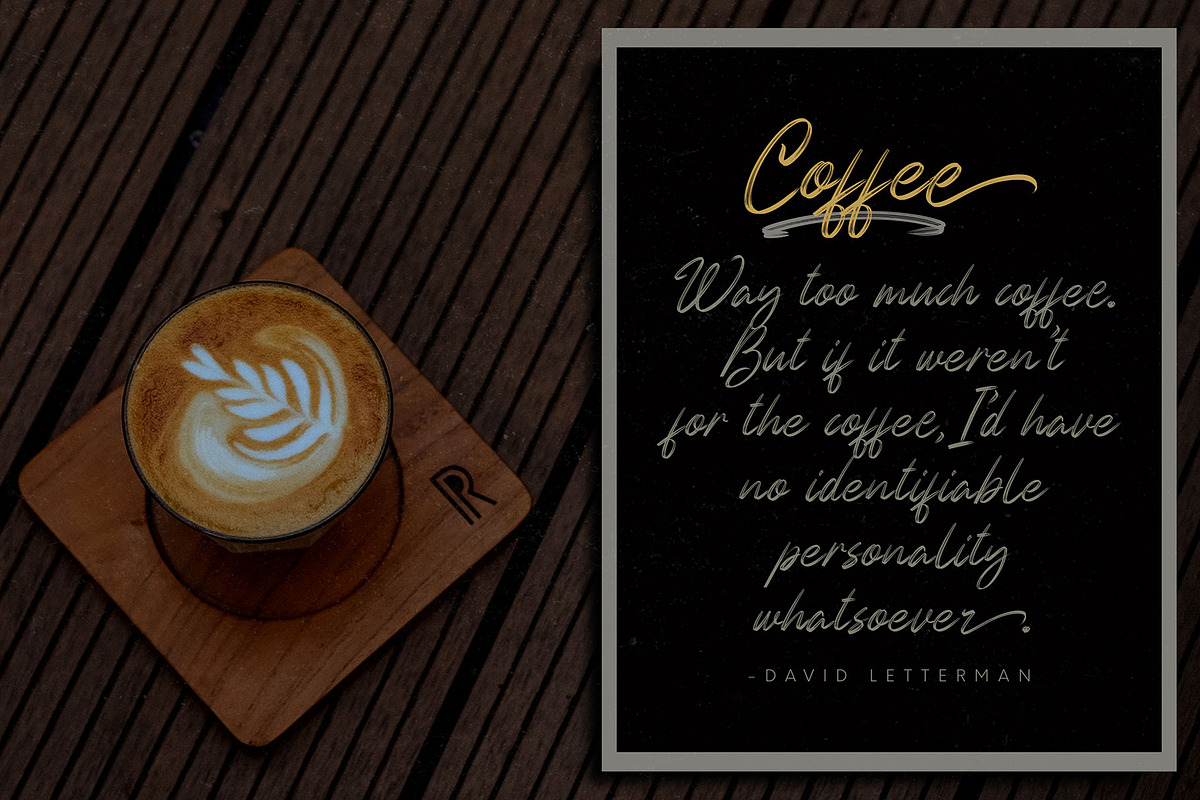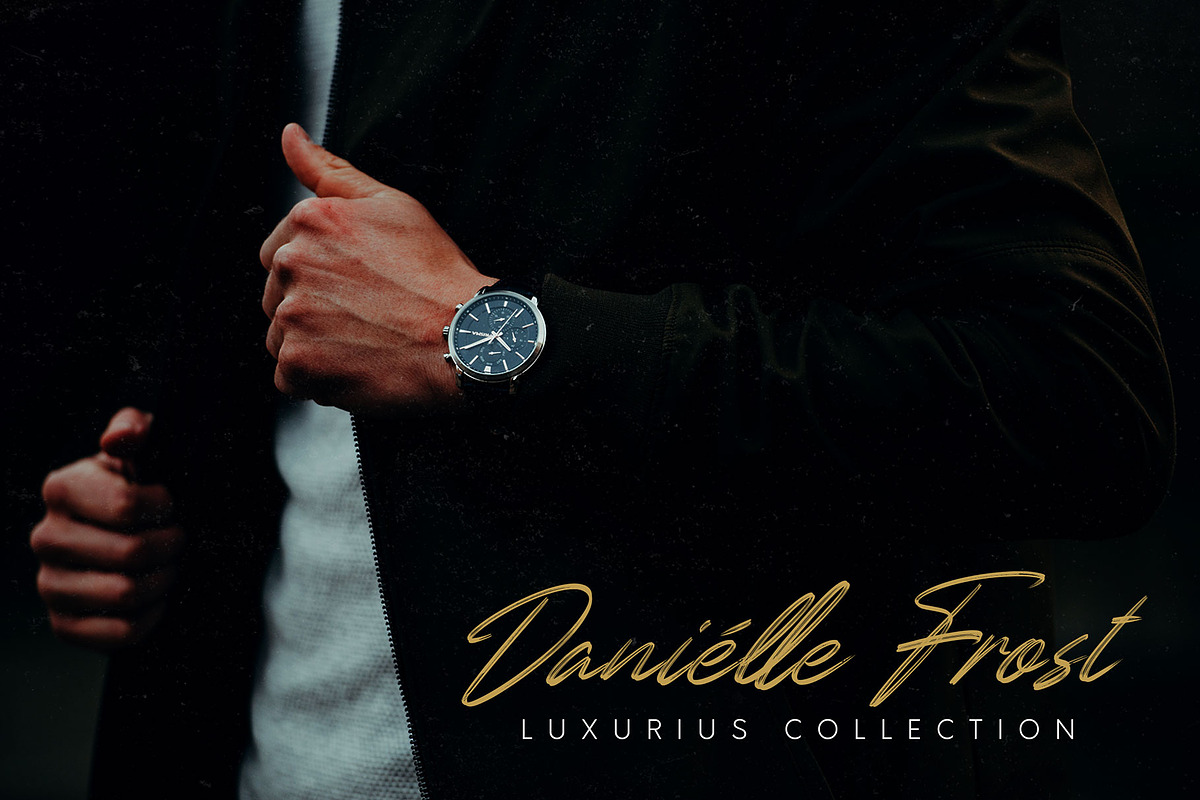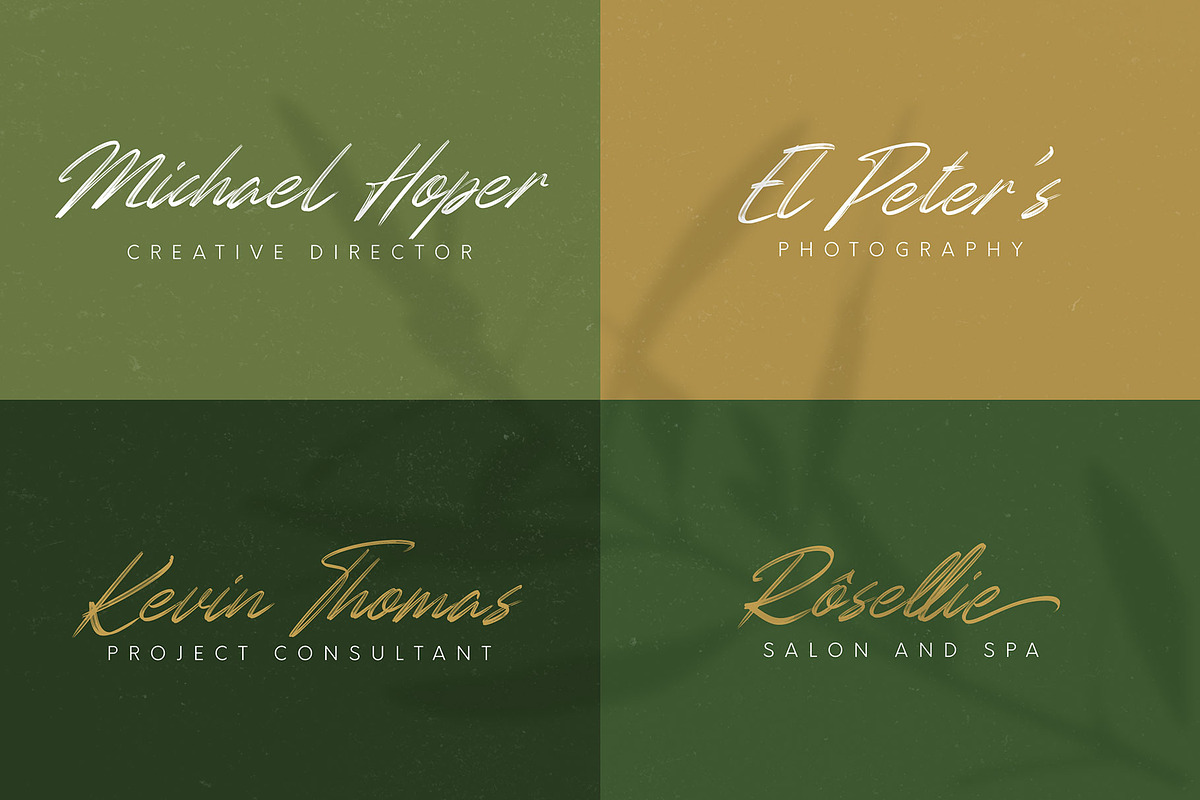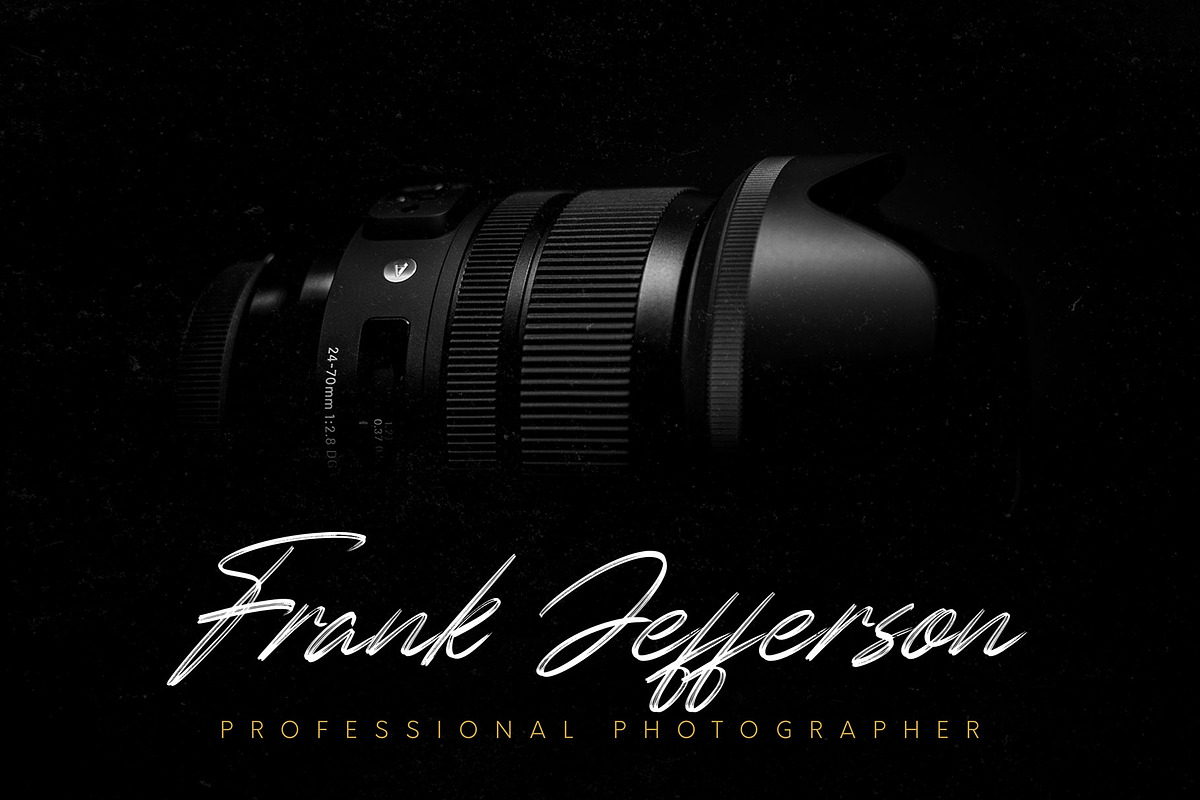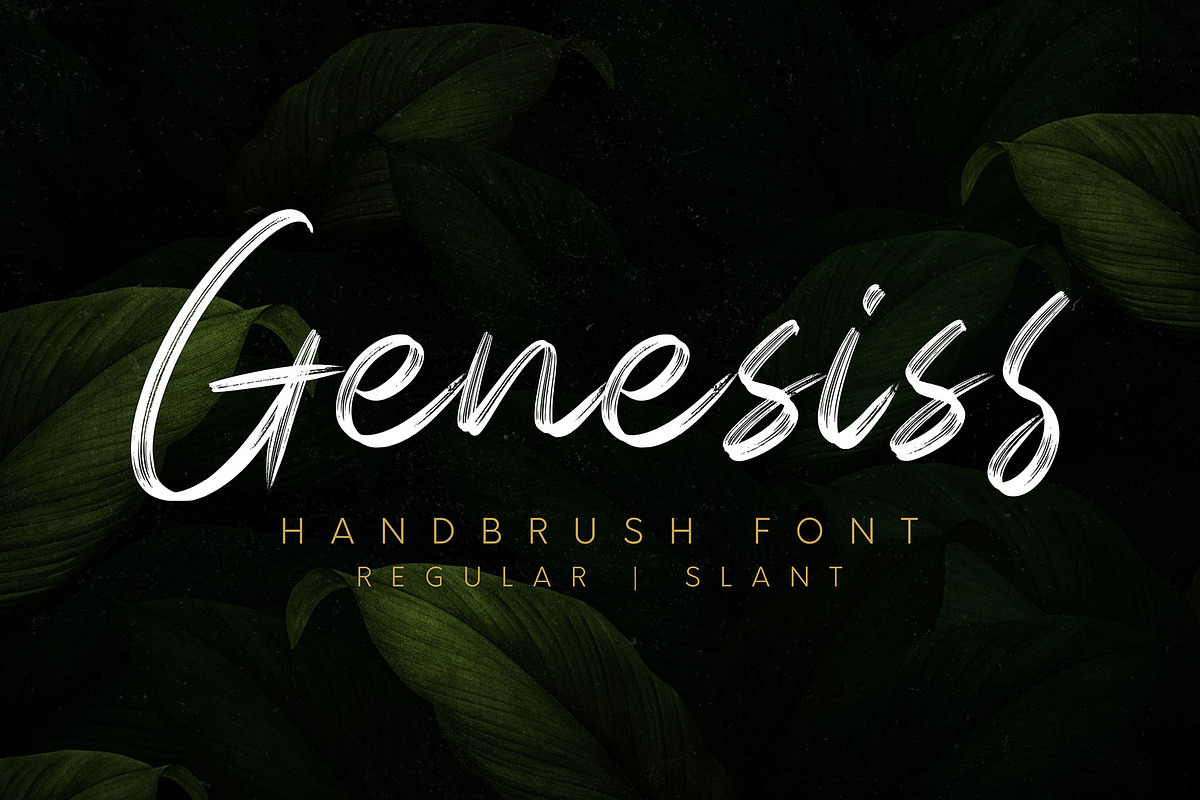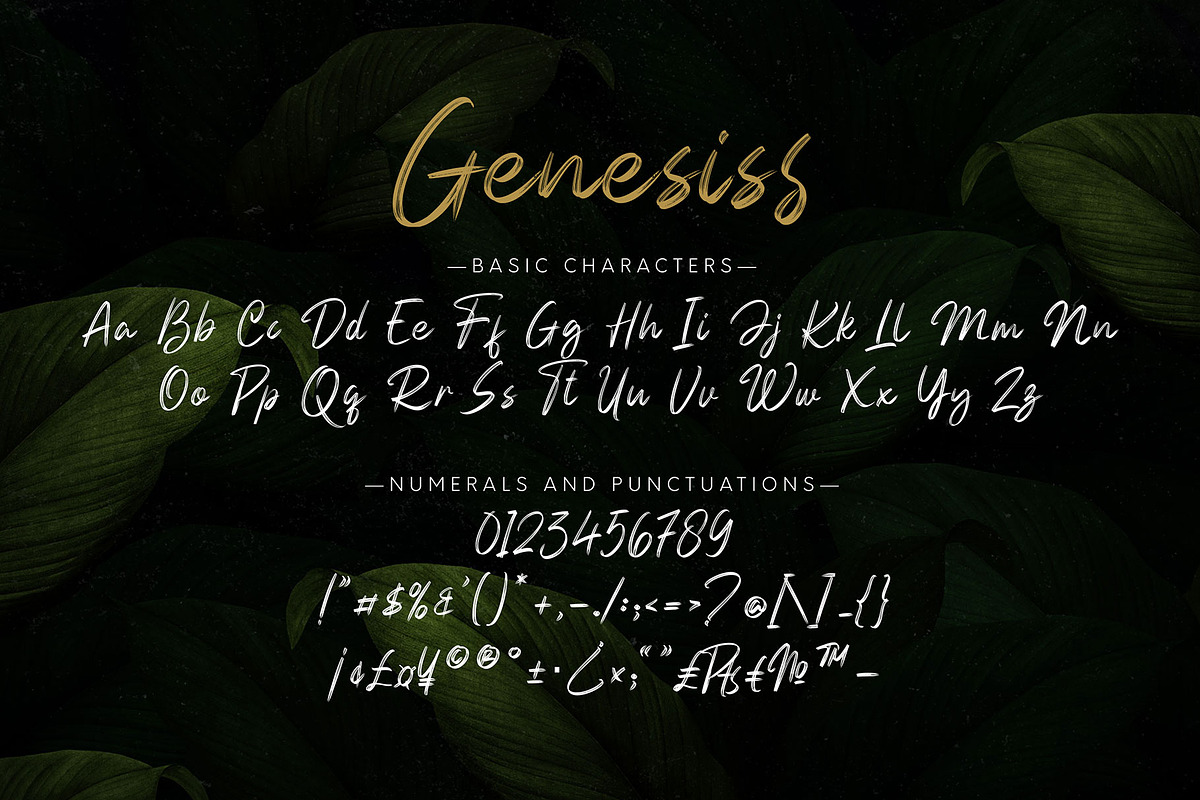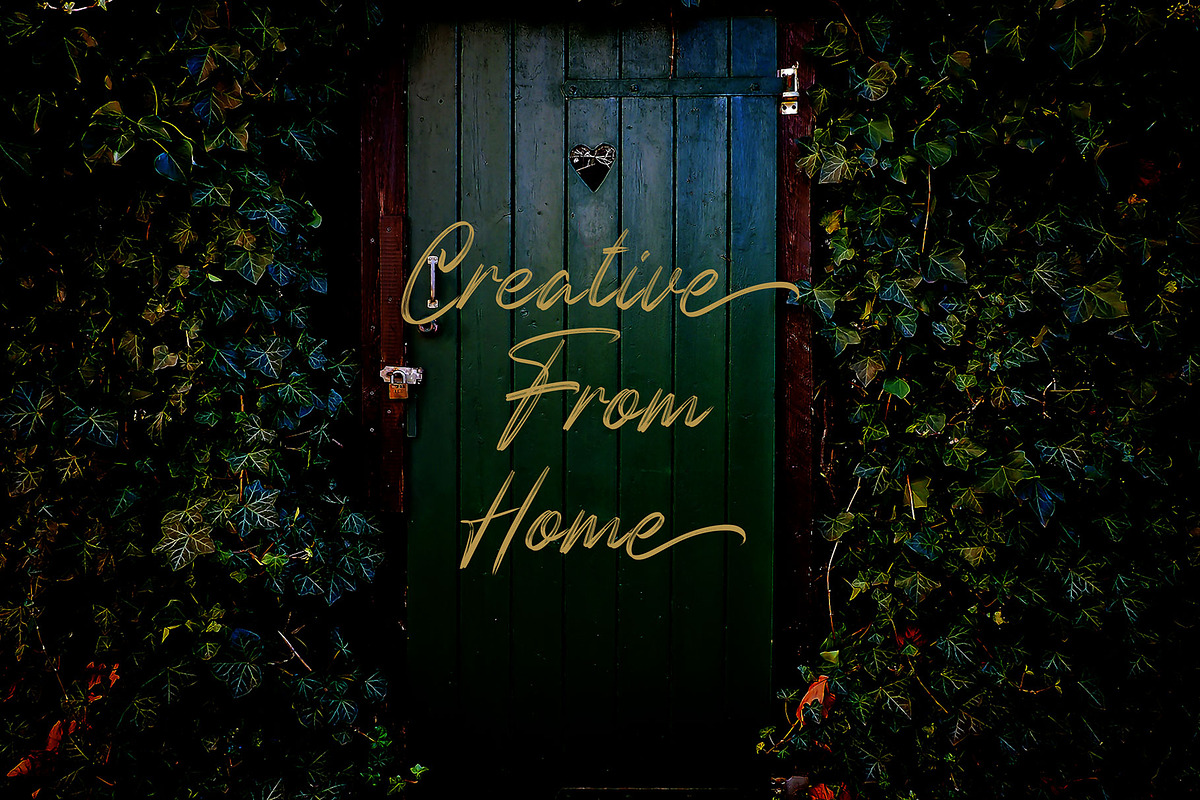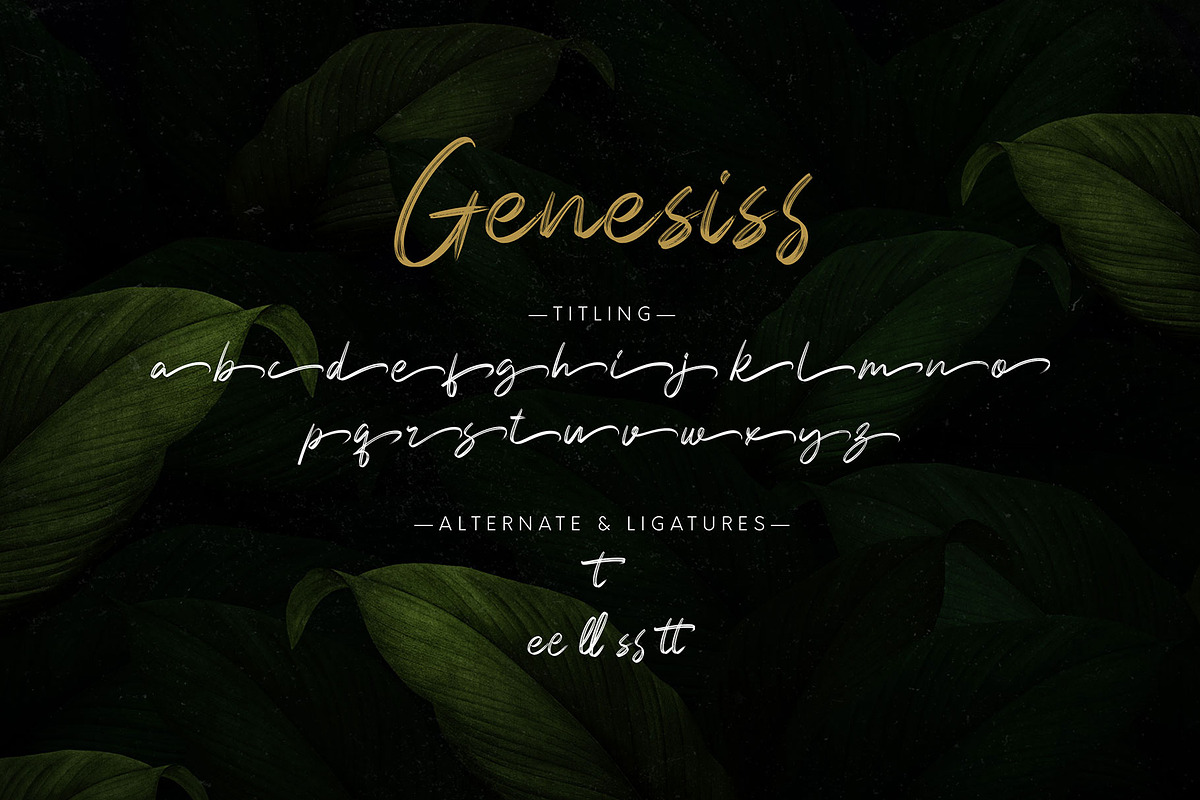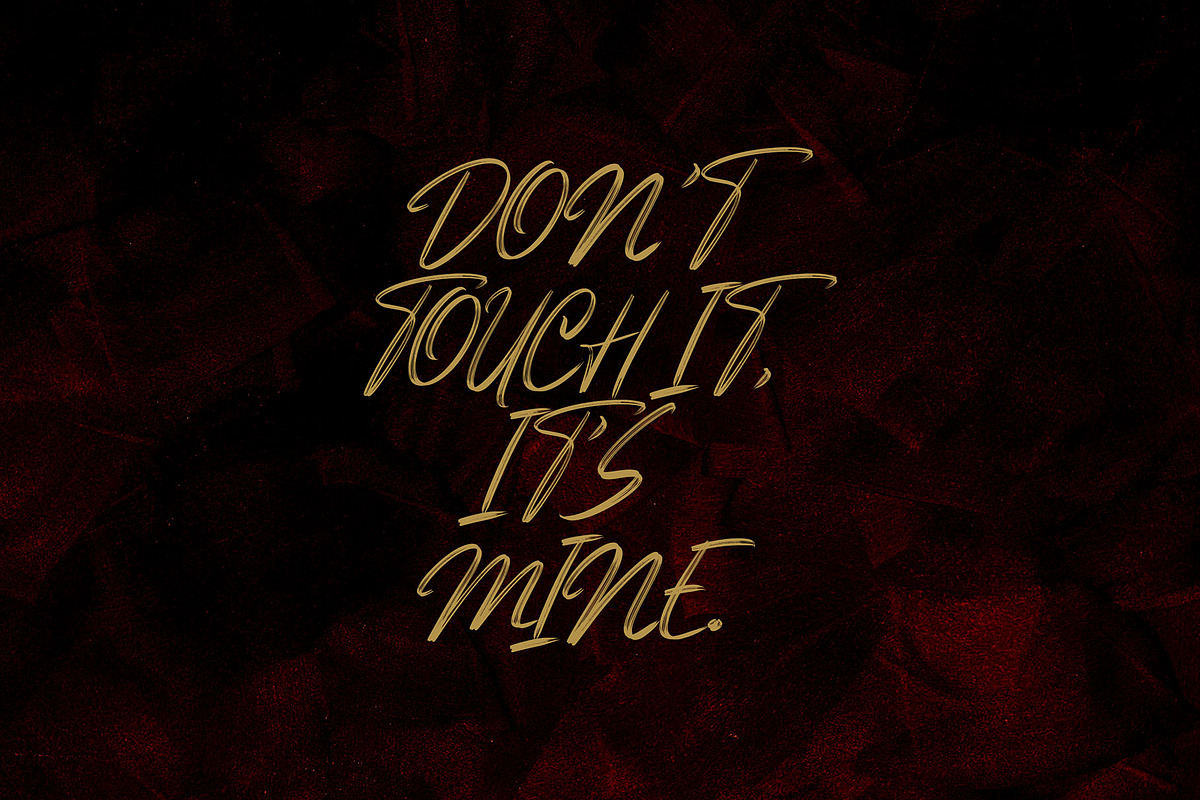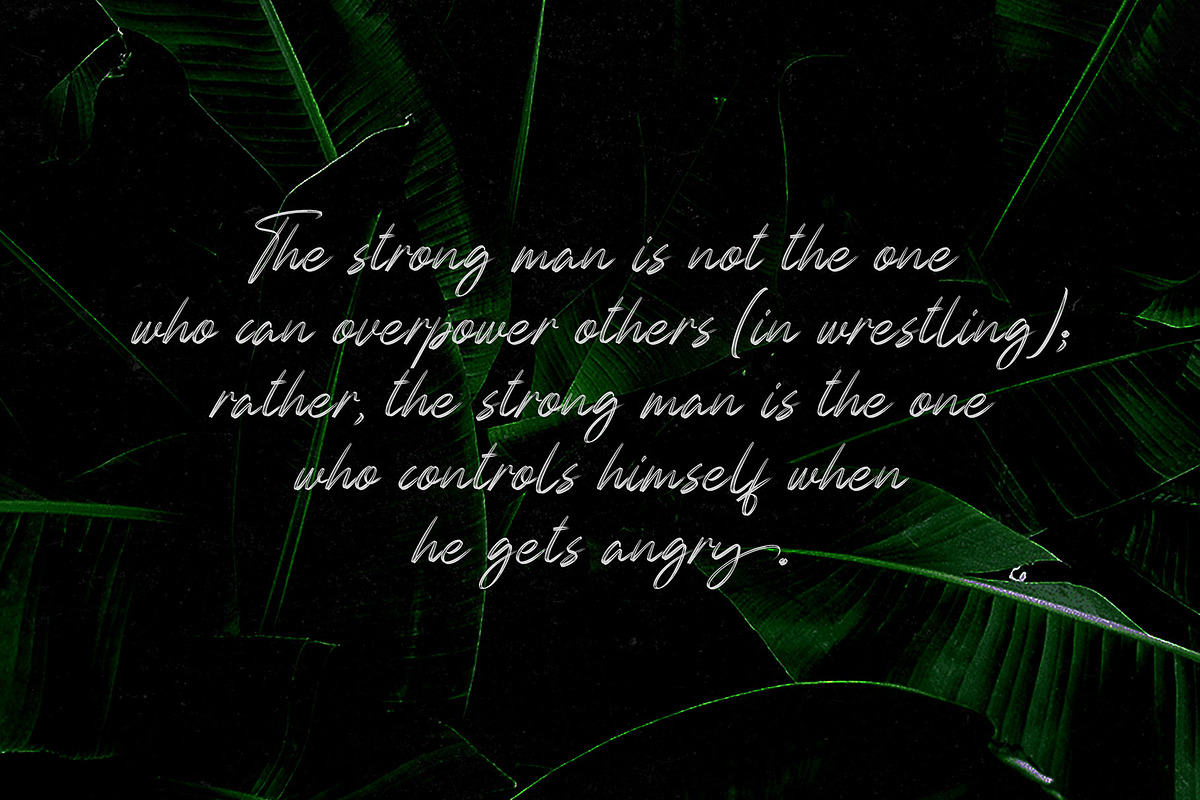
Genesiss
Genesiss! A handbrush script font with 2 styles, regular and slant. Genesiss font is suitable for branding, logotype, apparel, T-shirt, Hoodie, product packaging, quotes, flyer, poster, advertising, etc.
- Supports international languages
- Numerals, punctuations, end titling, and ligarures